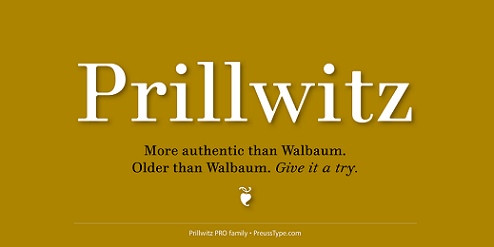
Prillwitz Font
Prillwitz Font is perfect for Germanic heritage branding, traditional European restaurant menus, classical music venue materials, historical institution presentations, artisanal craft packaging, old-world brewery signage, cultural heritage projects, European lifestyle campaigns, and distinguished traditional designs.
What makes Prillwitz Font exciting is its distinguished embodiment of European classical tradition that captures the refined elegance and cultural depth of Germanic heritage through masterfully crafted letterforms that echo centuries of artistic excellence. The font features traditional proportions with Germanic-inspired details that evoke the scholarly wisdom and craftsmanship found in European cultural institutions and time-honored traditions. Its authoritative character and cultural authenticity make it perfect for organizations that want to communicate heritage, scholarly excellence, and the enduring values of European civilization while creating memorable experiences that honor classical traditions and cultural sophistication.
Prillwitz Font family includes various traditional weights such as Light, Regular, Medium, and Bold variations, often featuring classical stylistic alternates and Germanic decorative elements. The family may include traditional symbols, heritage ornaments, and cultural ligatures that enhance the font's authentic aesthetic, providing designers with comprehensive options for creating distinguished typographic compositions that celebrate European heritage and classical design principles.